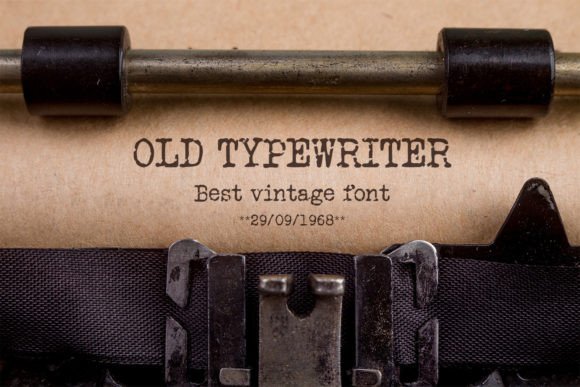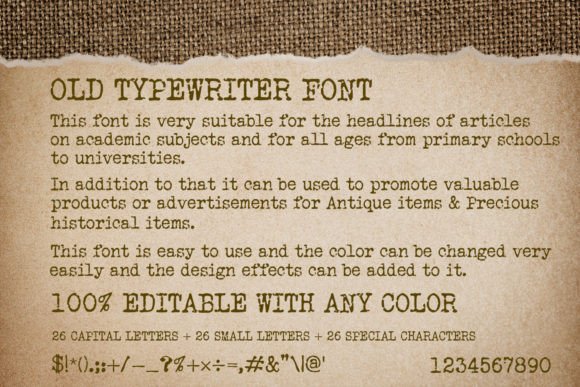
Old Typewriter Font
Old Typewriter is a cute, thematic typewriter font that is reminiscent of the old mechanical type. This slab serif is a great way to give your projects a retro or forensics style.
You can use it in various creations like newspapers, headlines, posters, magazines, t-shirt printing, wall art, and more.